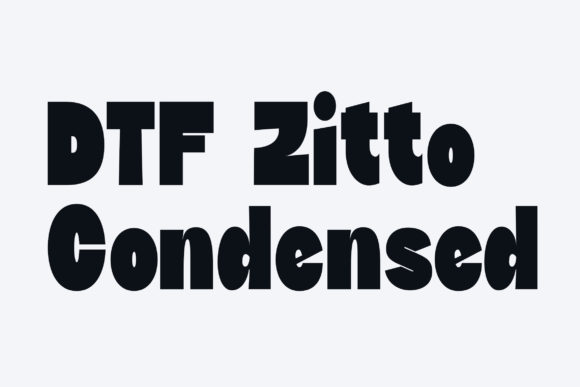
DTF Zitto Condensed for Bold Creative Projects
I was in the middle of designing a new line of hand-poured soy candles when I stumbled upon DTF Zitto Condensed. It was love at first sight. The font’s thick, bold lettering had that perfect amount of trendiness without feeling overdone. I knew right away it would be the perfect match for my candle labels—something that screamed quality and charm all at once.
DTF Zitto Condensed for Candle Labels and Handmade Packaging
DTF Zitto Condensed is a display font with a strong visual presence, making it ideal for product packaging and handmade labels. I used it on my candle jars, pairing it with a simple sans serif font for the small details like scent names and burn times. The contrast made everything pop, and customers noticed how professional the labels looked. Even though I’m not a designer by trade, the font felt intuitive to work with, and the results were instantly eye-catching.
When I printed out mockups of the label designs, I tested them on different materials—matte paper, glossy vinyl, even fabric. The font held up well on each surface, which gave me confidence to move forward with production. It's rare to find a font that feels both modern and timeless, but DTF Zitto Condensed does just that.
DTF Zitto Condensed for Greeting Cards and Seasonal Printables
As the holiday season approached, I decided to create some printable greeting cards using DTF Zitto Condensed. The font’s condensed shape worked beautifully on smaller cards, giving them a clean, elegant look. I paired it with a handwritten script font for the inside messages, which added a personal touch. Customers loved how the cards looked on their desks and in their mailboxes.
I also used the font for seasonal printables like Christmas tags and autumn-themed wall art. The boldness of DTF Zitto Condensed made the words stand out against soft backgrounds, creating a striking visual balance. Whether it was a simple “Merry Christmas” or a longer quote about gratitude, the font always delivered the right amount of impact.
DTF Zitto Condensed for Wedding Invitations and Elegant Branding
One of the most recent projects I worked on was designing wedding invitations for a client who wanted something unique yet classic. DTF Zitto Condensed was the perfect choice for the main title, as its thick lettering gave the invitation an air of elegance and sophistication. I used a complementary serif font for the details like dates and locations, ensuring the design remained readable while still feeling special.
The couple loved how the invitations turned out, and they mentioned that the font helped set the tone for their big day. It wasn’t just about looking good—it was about feeling right. That’s what makes DTF Zitto Condensed so valuable for creators: it adds emotional appeal and brand consistency with every use.
DTF Zitto Condensed for Planner Pages and Digital Downloads
For digital downloads, I’ve been using DTF Zitto Condensed on planner pages and printable calendars. The font’s condensed style fits perfectly within the structured layout of planners, helping to highlight important sections like goals, reminders, and weekly themes. It’s also great for headers and decorative elements, adding a creative flair without overwhelming the content.
I often pair it with a minimalist sans serif font for body text, which keeps the overall design clean and easy to read. This combination works especially well for digital products, where readability is key. Plus, since DTF Zitto Condensed is a display font, it doesn’t get lost in the details—it stands out exactly where it needs to.
DTF Zitto Condensed for Sticker Sheets and Product Tags
If you're anything like me, you know how important stickers are for branding and packaging. I recently created a sticker sheet for my shop, and DTF Zitto Condensed was the obvious choice for the main text. The bold, thick letters looked amazing on both paper and vinyl, and the stickers became one of my best-selling items.
When working with cutting machines like Cricut or Silhouette, I found that DTF Zitto Condensed performed exceptionally well. The font’s clean lines made it easy to cut, and the final stickers had crisp edges that didn’t fray or smudge. For those of us who rely on precise cuts for our handmade products, this is a huge plus.
DTF Zitto Condensed for Boutique Tags and Merchandise
I’ve also started using DTF Zitto Condensed on boutique tags and merchandise like mugs and tote bags. The font’s thickness gives the tags a premium feel, which elevates the entire shopping experience. On clothing items, it works well as a short phrase or slogan, adding a touch of personality without overpowering the design.
As a creator, knowing that I have a font like DTF Zitto Condensed in my toolkit gives me the confidence to experiment and innovate. It’s more than just a font—it’s a creative companion that brings ideas to life with every stroke of the letter.